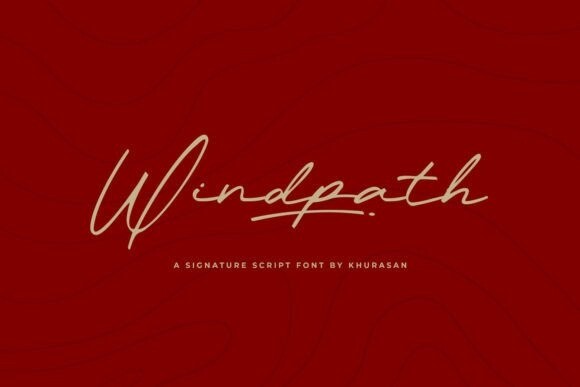
Windpath Font
Windpath Font is a fresh script typeface, elegant and modern feel character set. This font is a clean, stylish, modern, and elegant script font perfect for posters, logos, magazines, book covers, banners, and many more! Get this amazing font, and use it to create lovely designs. It can easily be matched to an incredibly large set of projects, so add it to your creative ideas and notice how it makes them stand out!